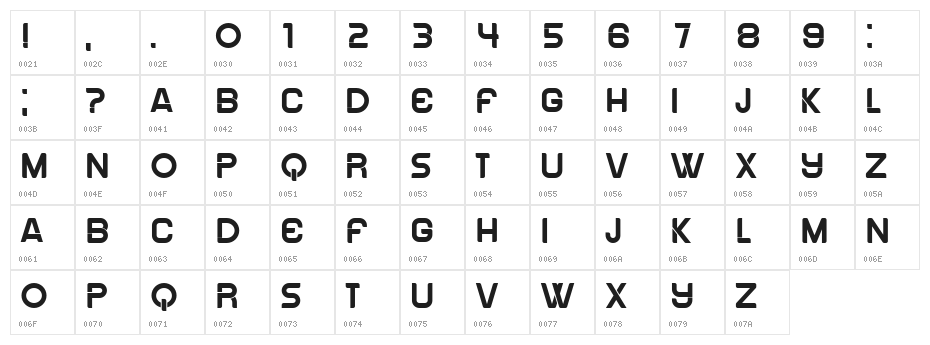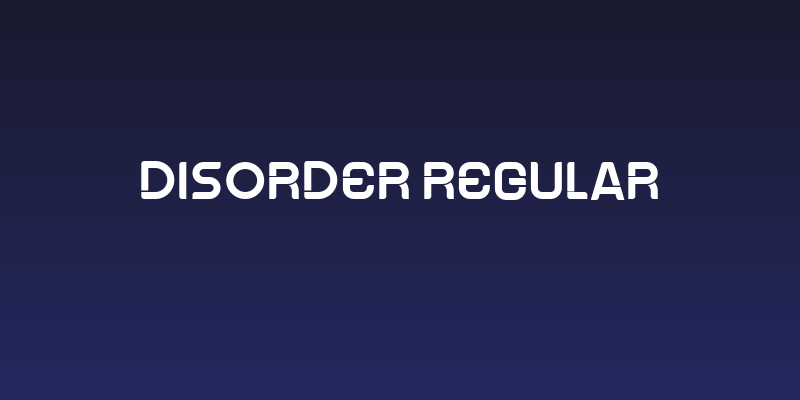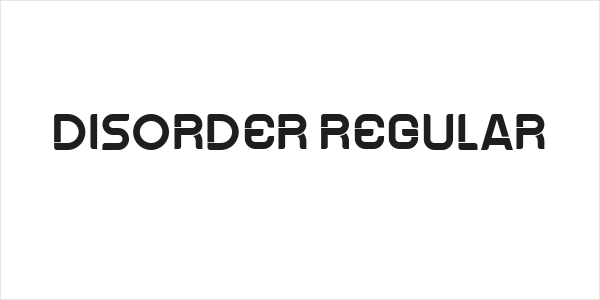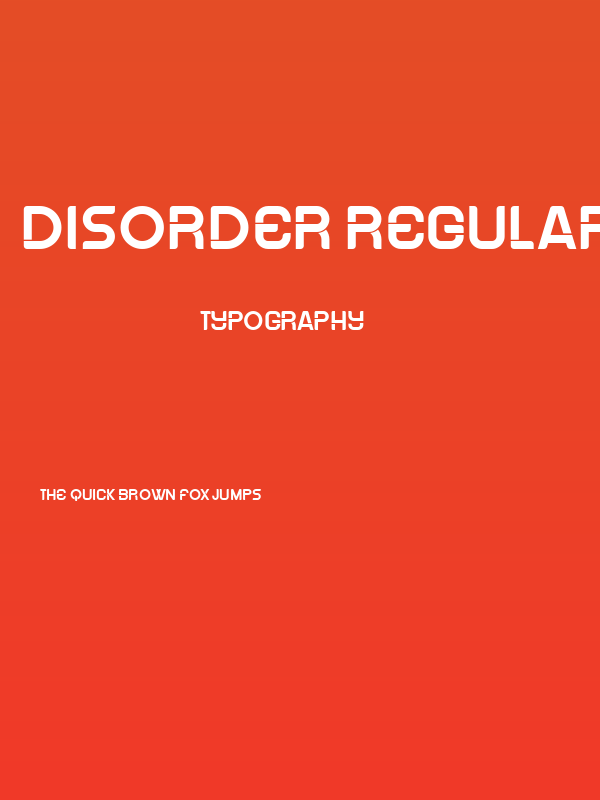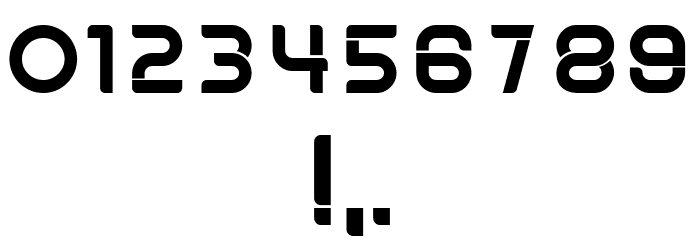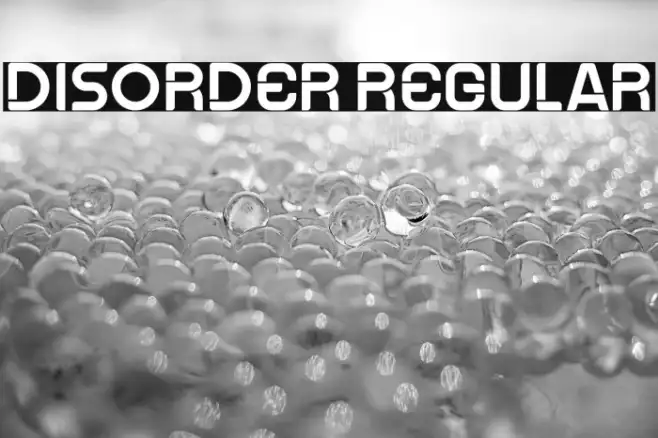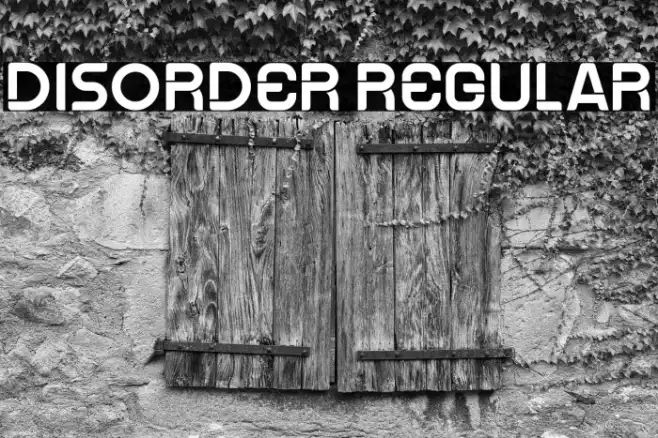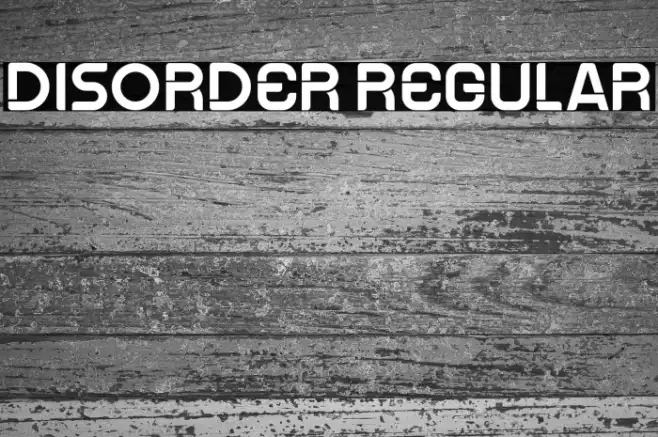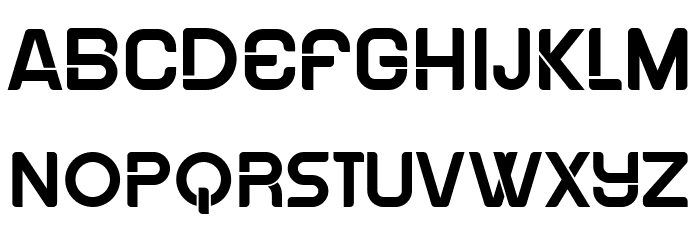
Disorder Regular Font
Disorder Regular Description
This font features a bold, geometric design with a futuristic and modern aesthetic. The characters are constructed with thick, uniform strokes and exhibit a unique, almost stencil-like quality. The design incorporates distinctive cutouts and angles, giving it a dynamic and edgy appearance. The uppercase letters are consistent in height and width, while the numerals maintain a similar style, ensuring visual harmony across different text elements. The font's boldness and distinctiveness make it suitable for attention-grabbing designs.
| Proposed Projects | Ideal for branding, posters, and digital media that require a modern and edgy look. |